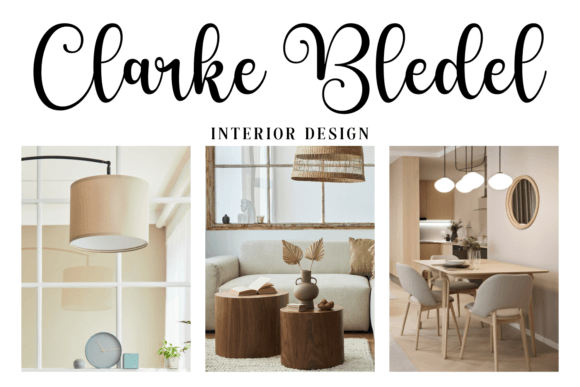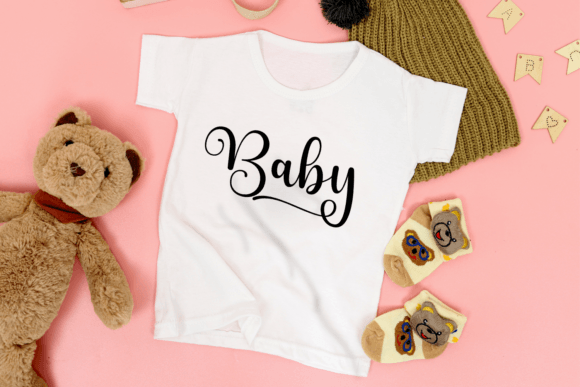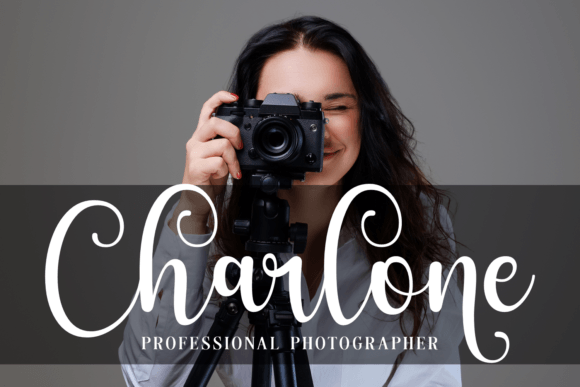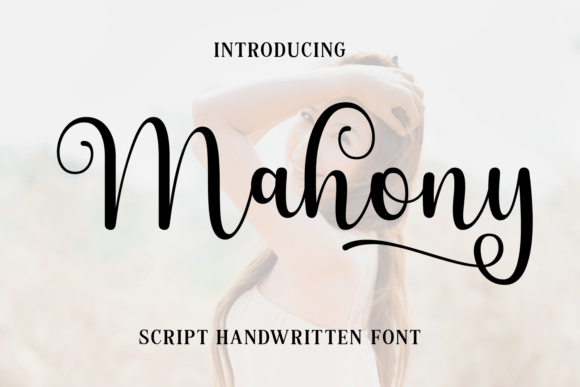
Introduction to Mahony Font
Mahony is a lovely handwritten font.
Ideal for invitations, greeting cards, logos, and branding materials, Mahony can be used in both formal and informal contexts Its versatility makes it suitable for a wide range of projects.
Key Features of Mahony Font
Why Choose Mahony Font?